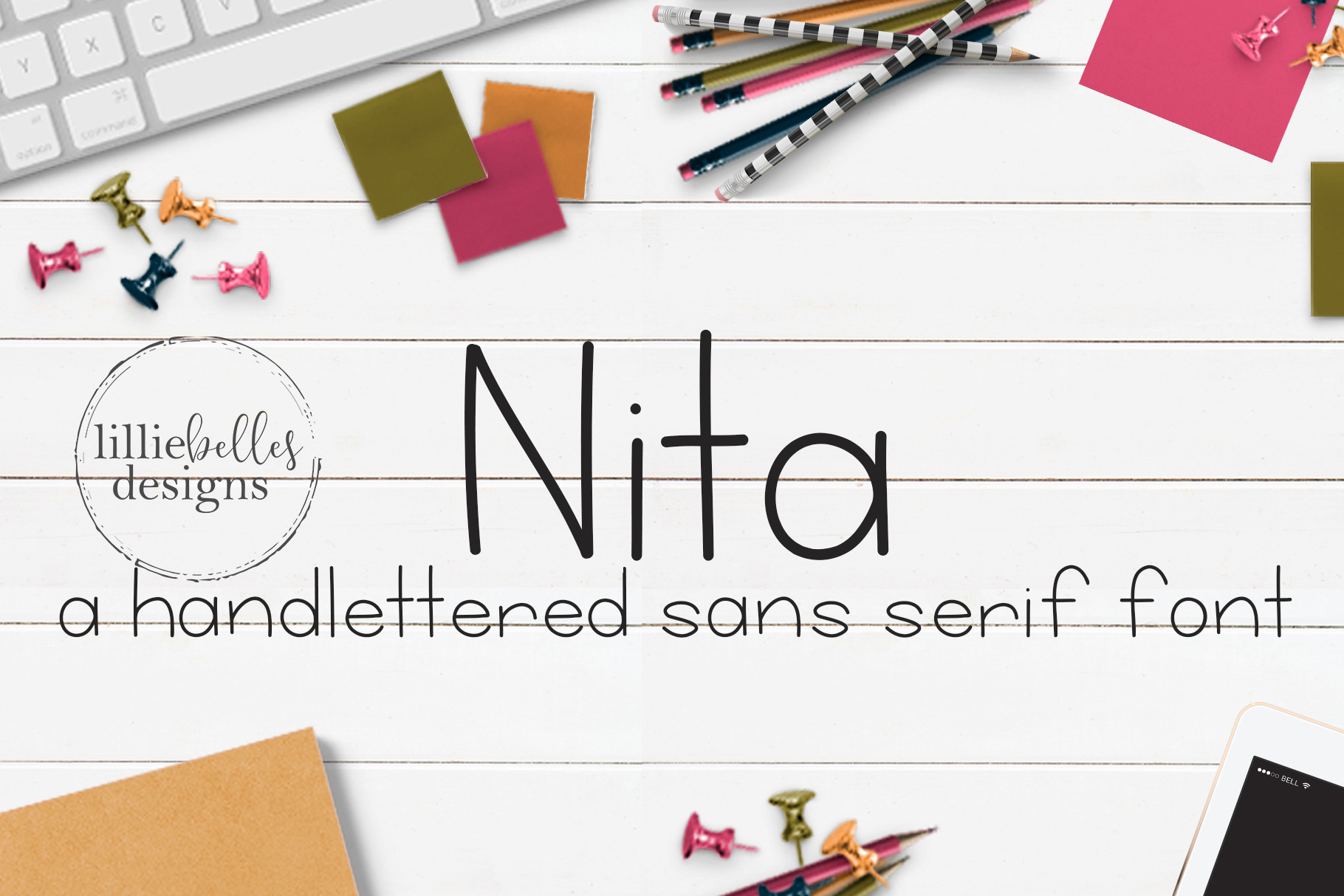
Nita - a Sans Serif Font
If you're looking for a hand lettered sans serif font, I would like to introduce you to Nita - a hand lettered sans serif font. This font looks great paired with script fonts, or alone. Perfect for invitations, logos, designs, and so much more!